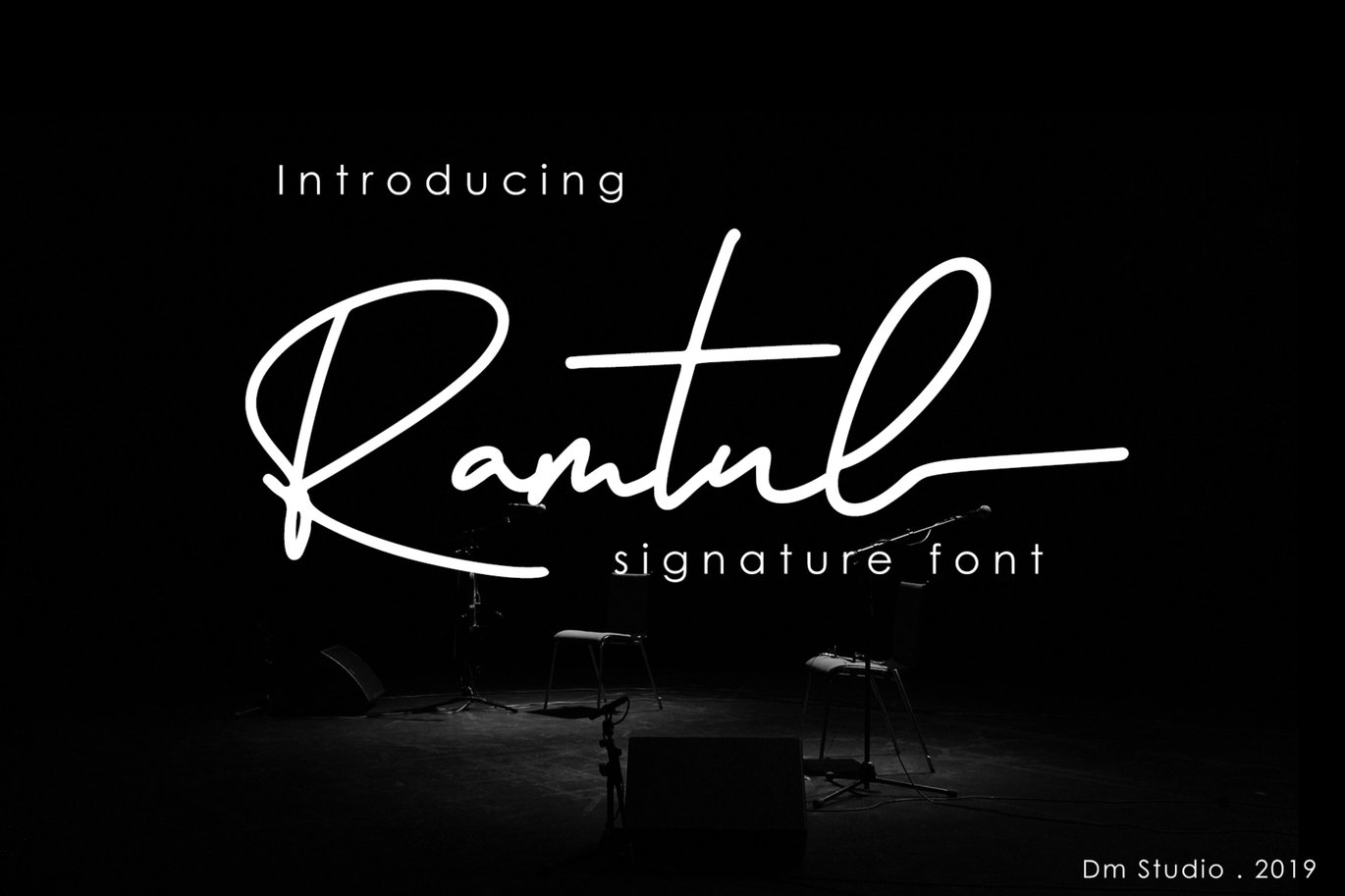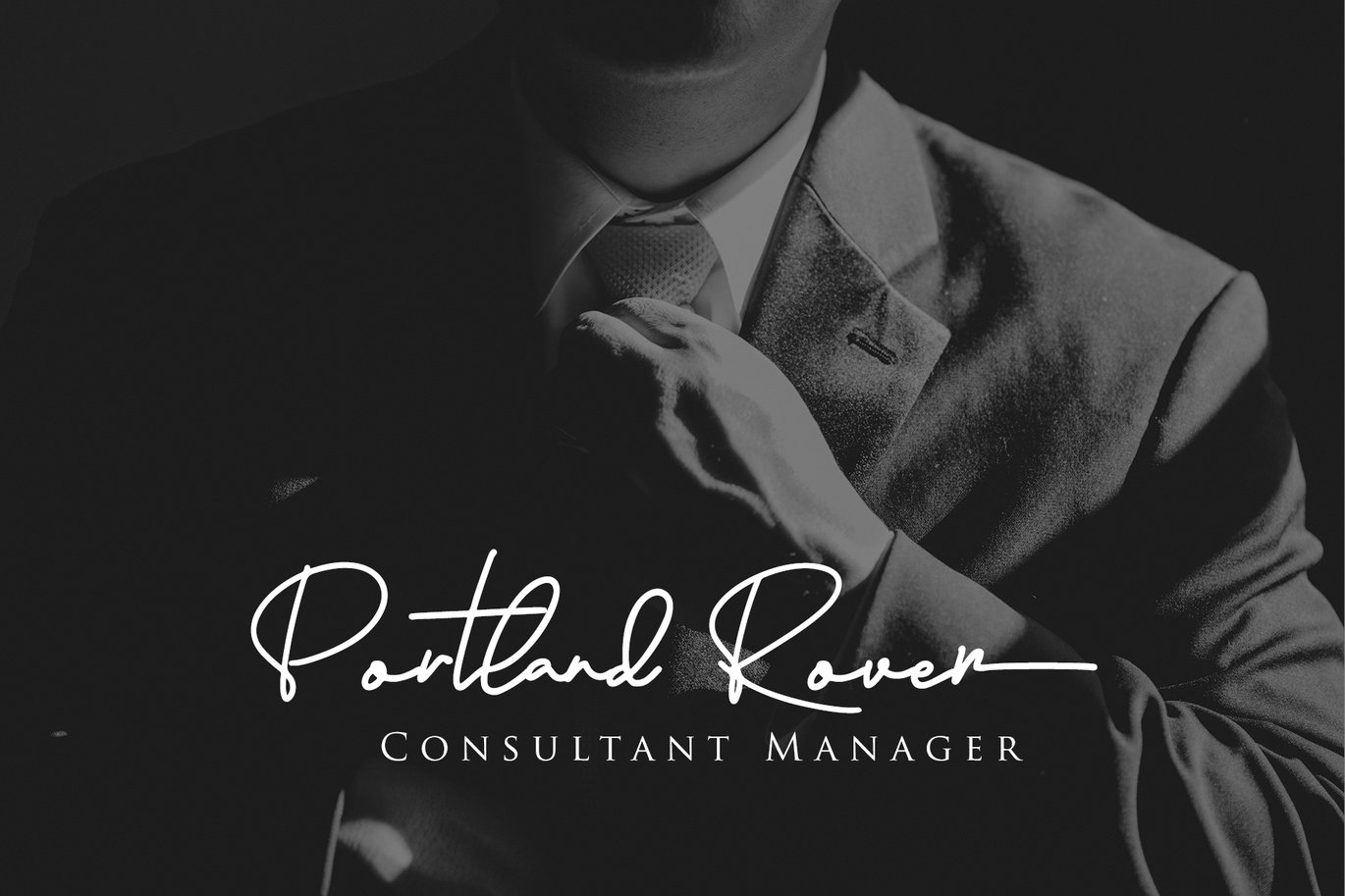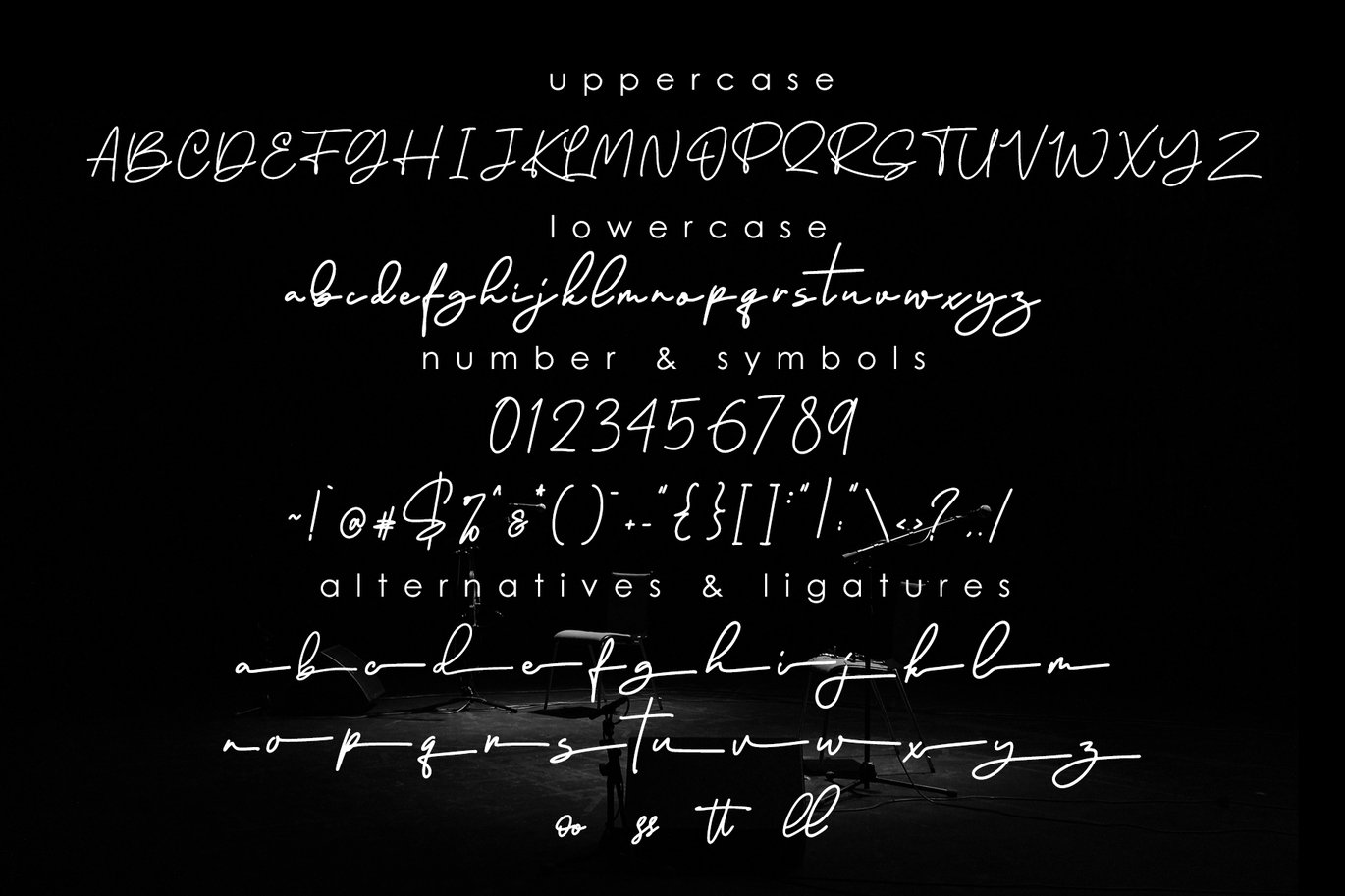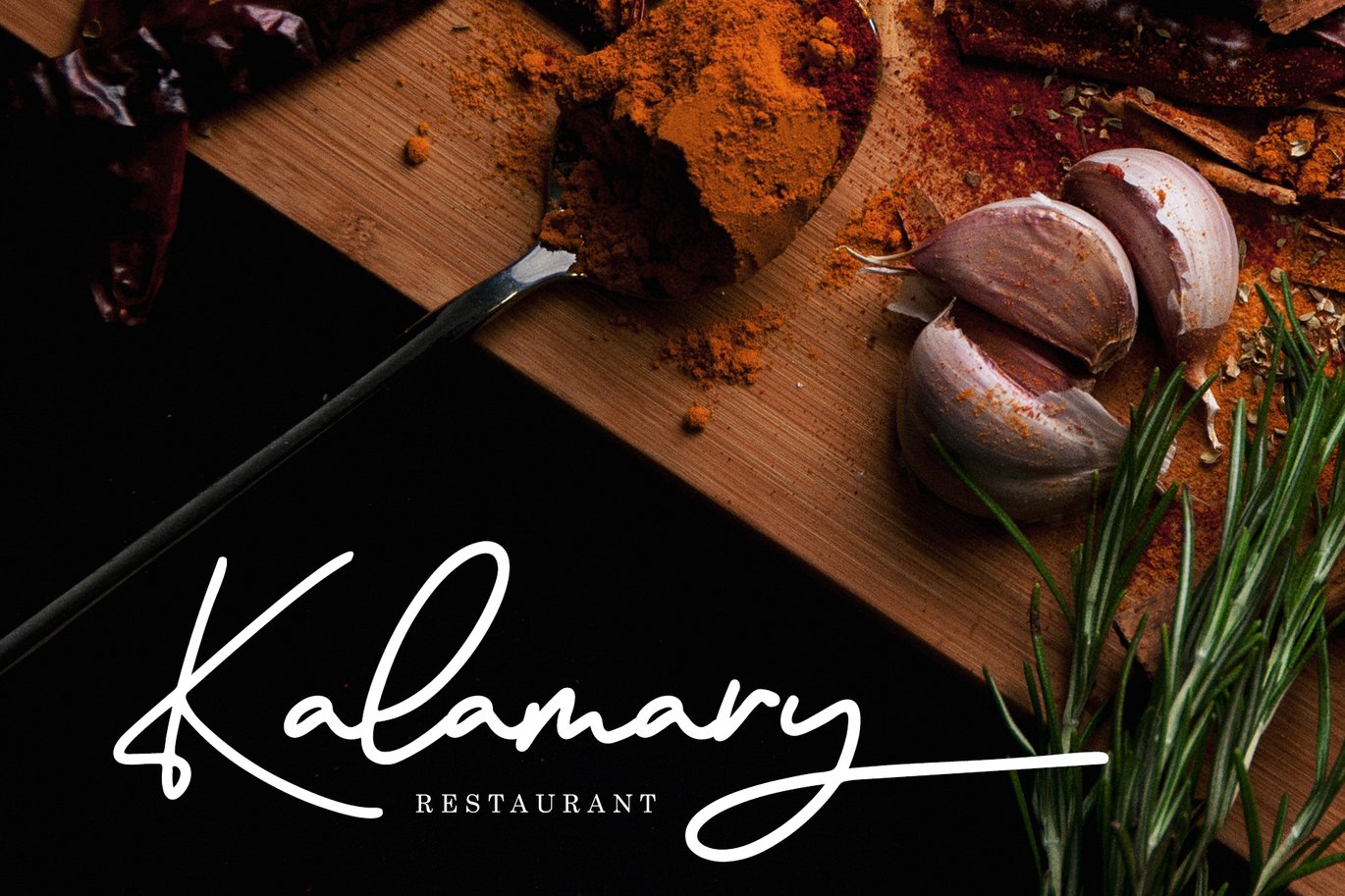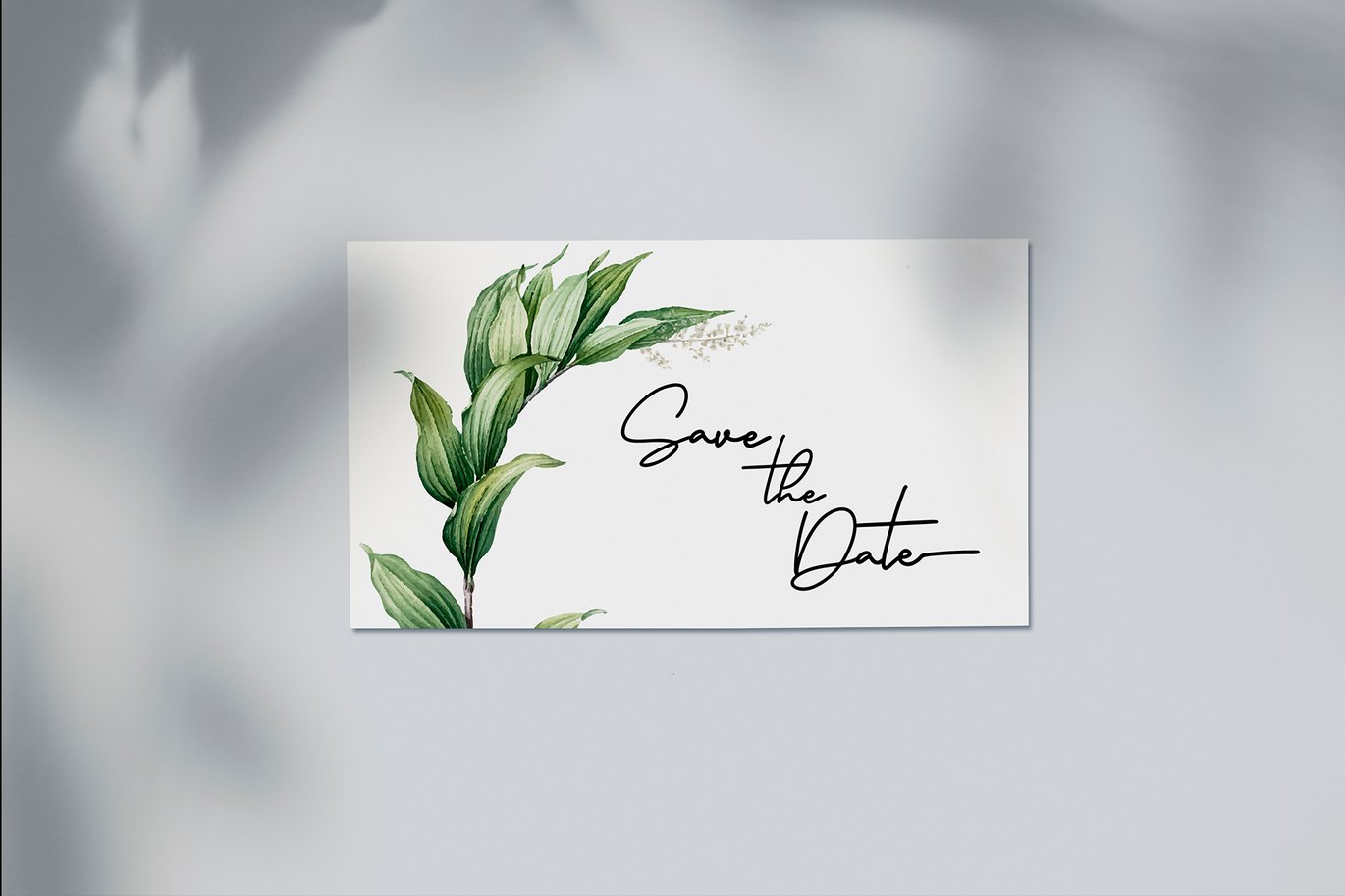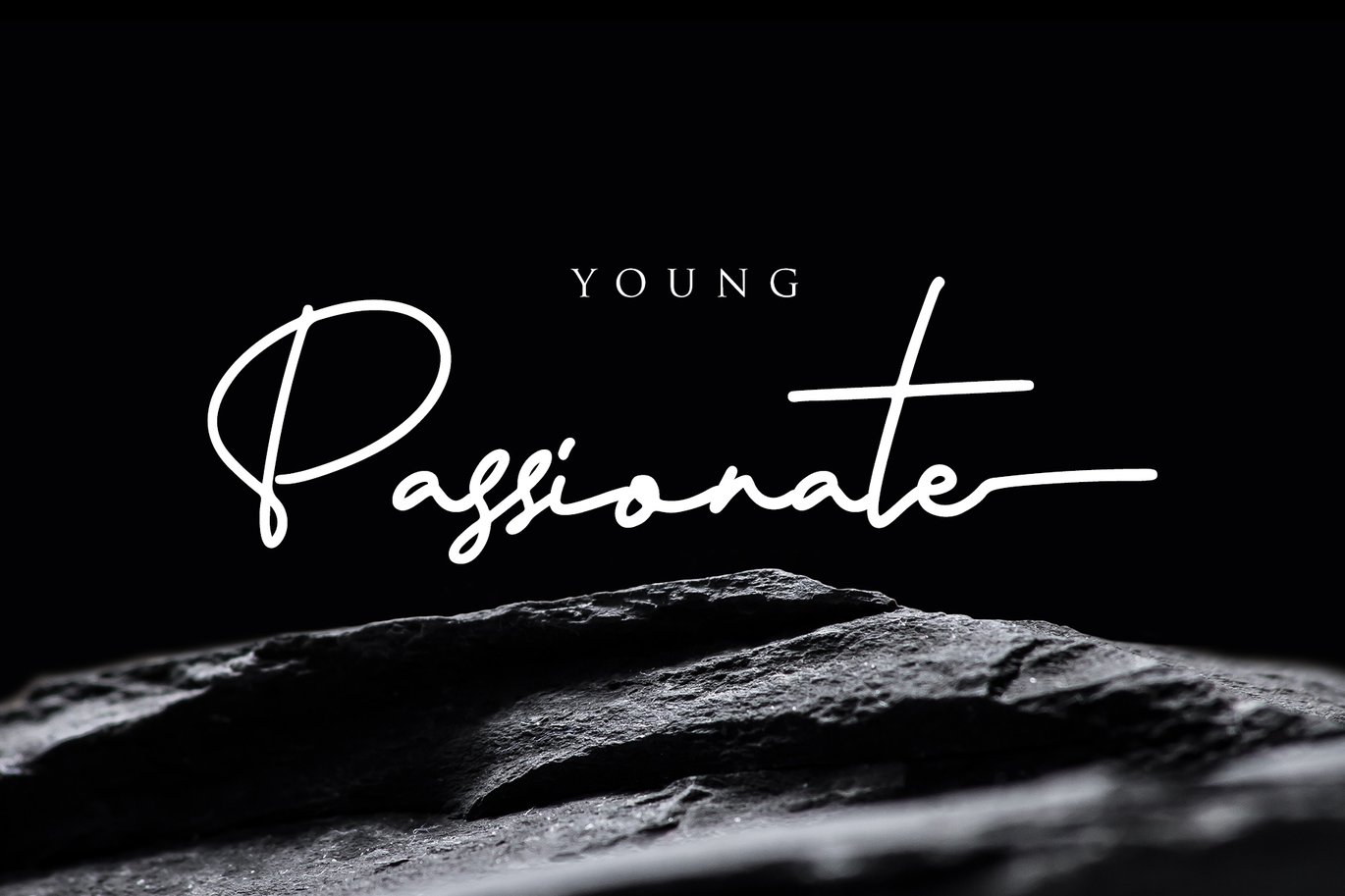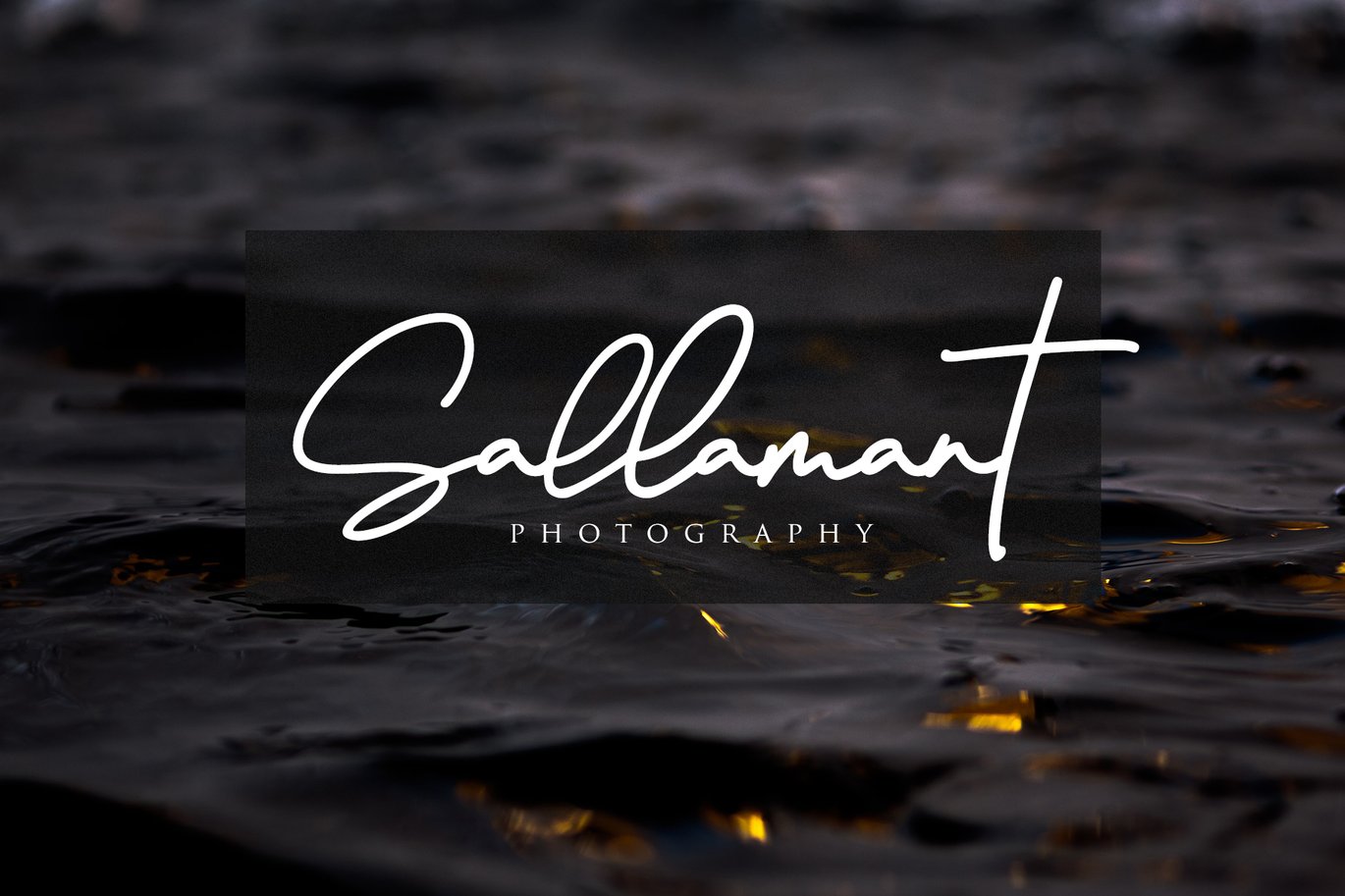
Ramtul – Signature Font
Ramtul Signature
Simply attach this classy, versatile and elegant handwritten font, to your special project, business or personal stuffs. Comes with extra alternate glyphs & ligatures to make some various styles. It’s easy to use and support multilingual.